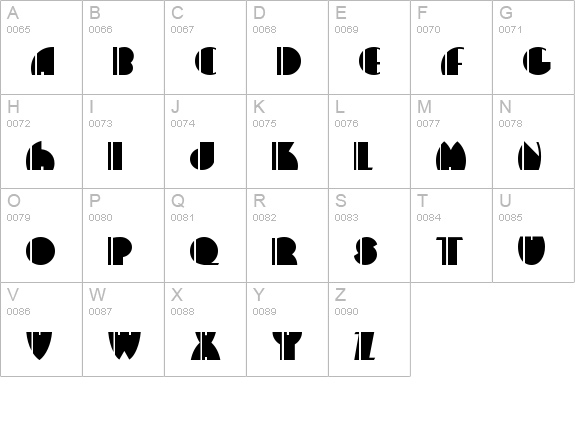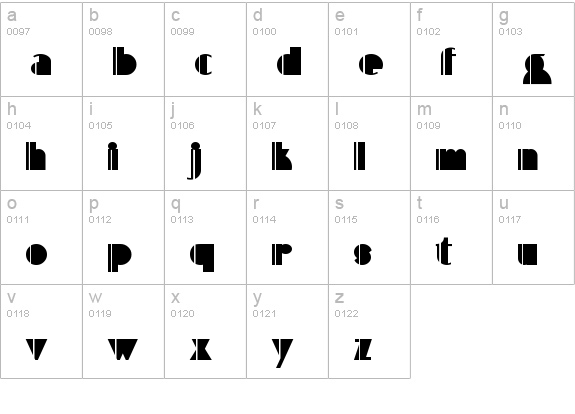
HighFive Font Details
Introducing HighFive font - a playful and energetic typeface that is sure to bring a sense of fun to any project. With its bold and quirky letterforms, HighFive is perfect for adding a touch of whimsy to your designs. Whether you're creating posters, logos, or social media graphics, this font is sure to make a statement. The best part? HighFive font is completely free to download at FontsMarket.com. Yes, you heard it right - you can get your hands on this unique and eye-catching font without spending a dime. Don't miss out on the opportunity to add a playful twist to your designs with HighFive font. Download it today and let your creativity soar!